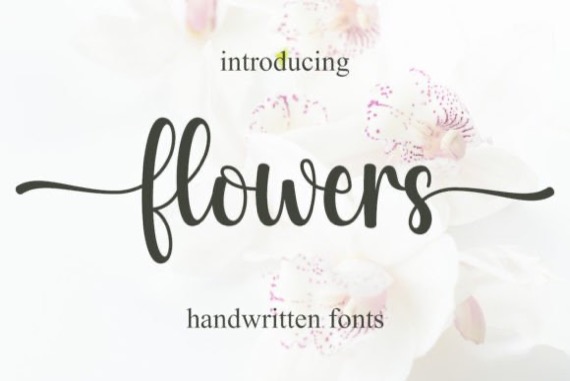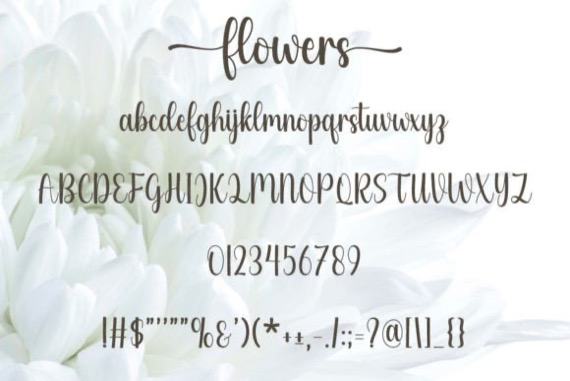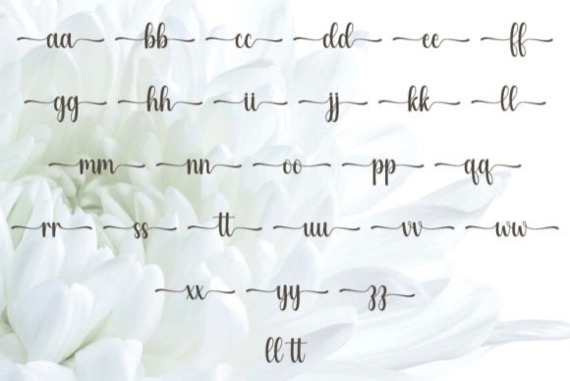
Flowers is a delicate, elegant, and flowing handwritten font that was created and published by Hardiboy Design, It’s perfect for your favorite projects. Fall in love with its incredibly distinct and timeless style, and use it to create spectacular designs! This font is PUA encoded, which means you can access all of the glyphs and swashes with ease!
Flowers Handwritten Script Font
Designer, Publisher: Hardiboy Design